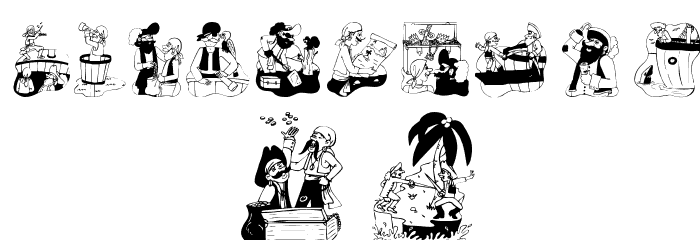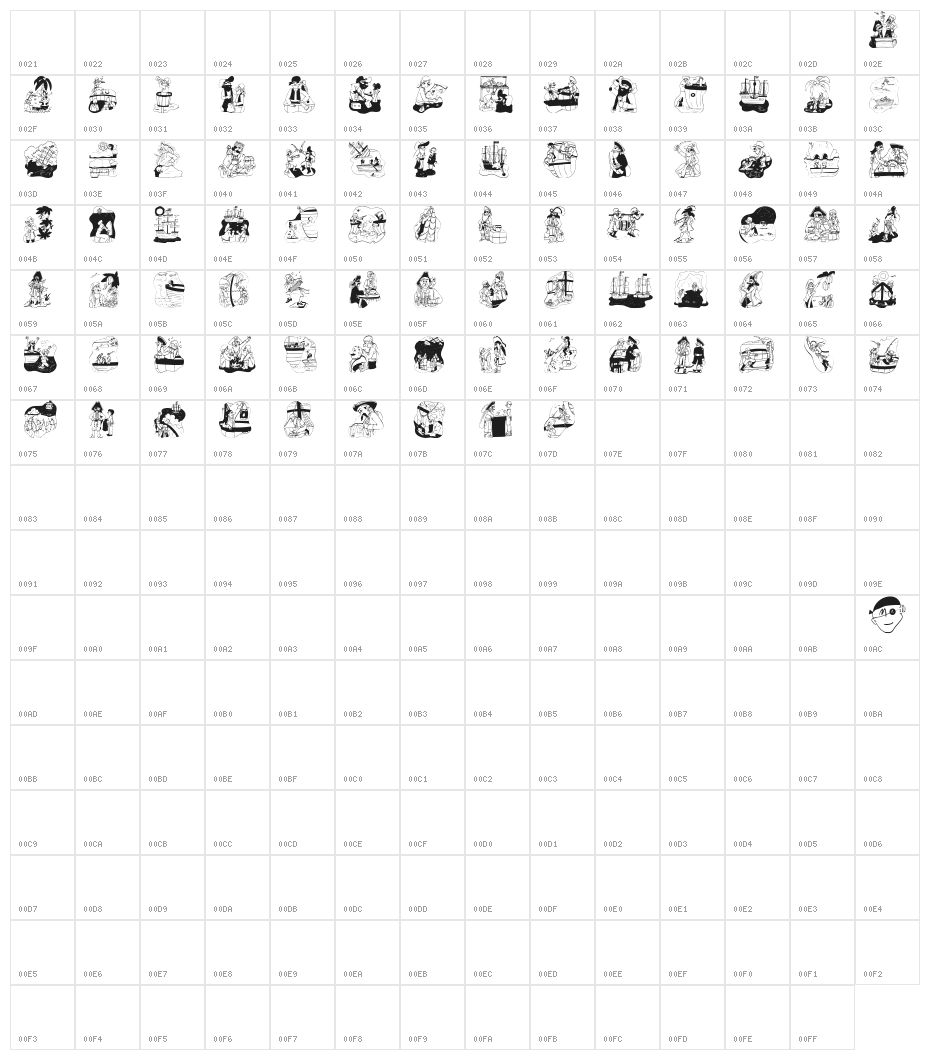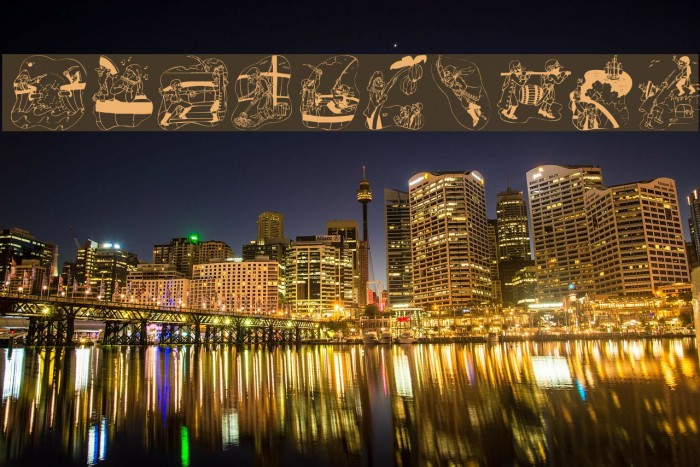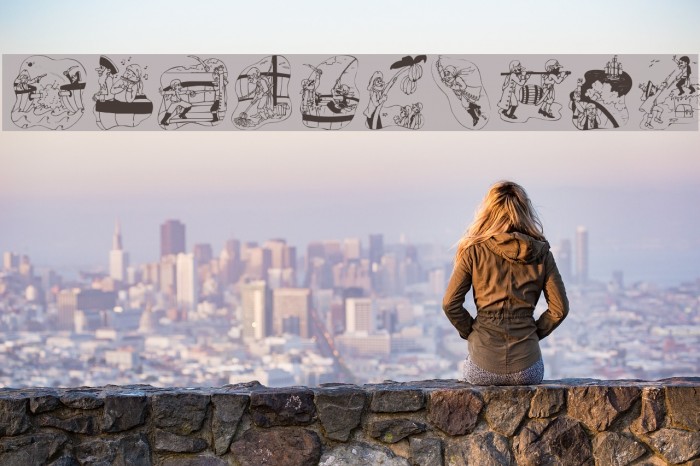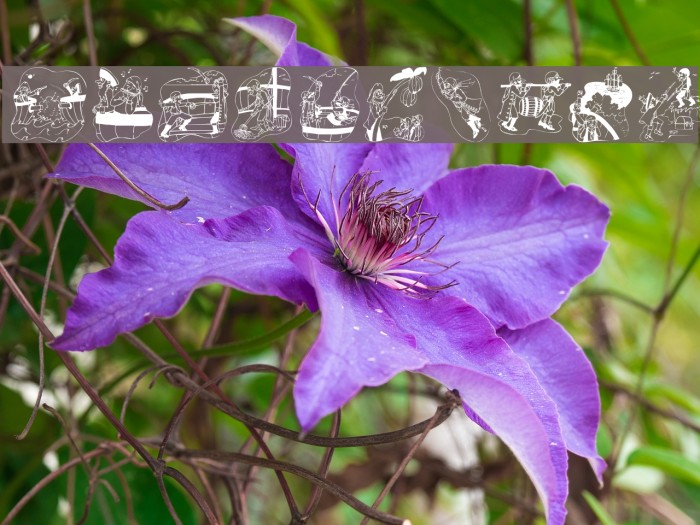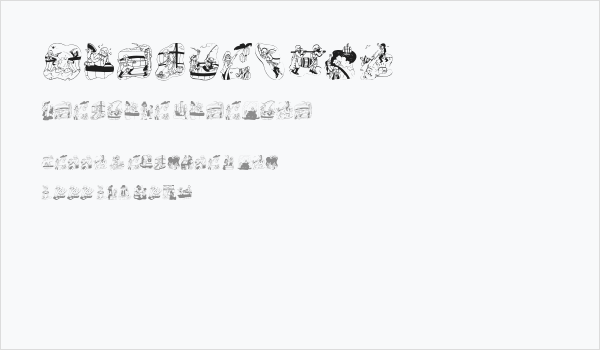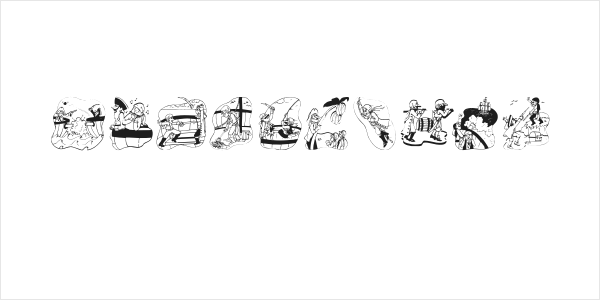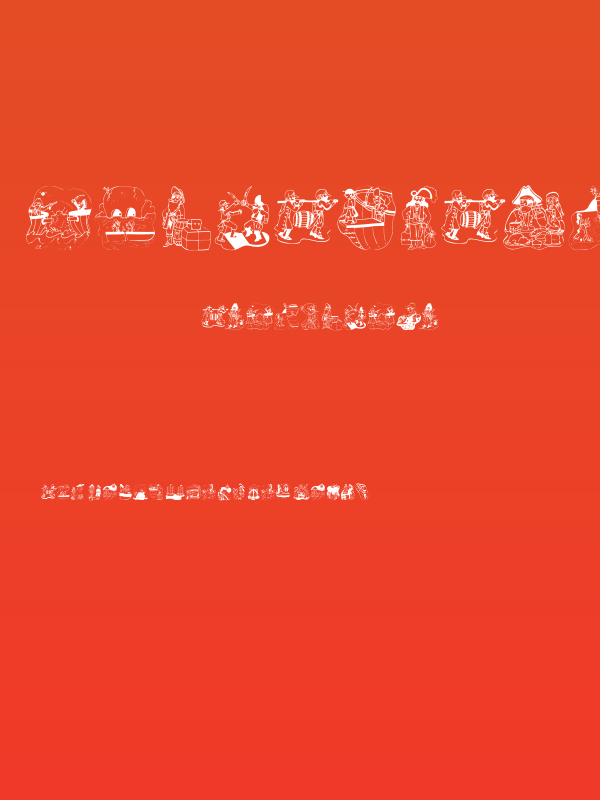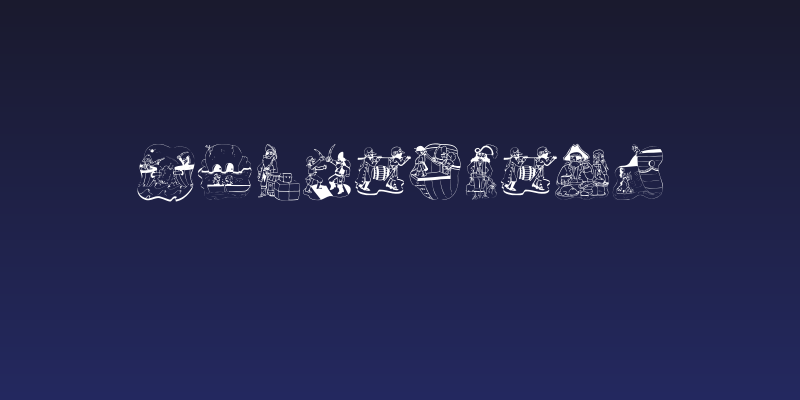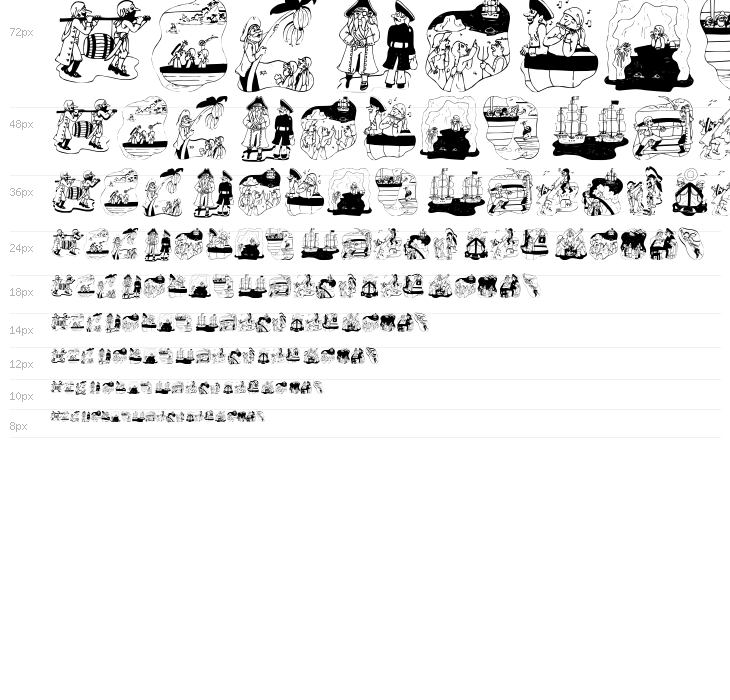
PiratesTwo Font
PiratesTwo Description
This font is a whimsical and playful collection of pirate-themed illustrations, each representing a different character or scene. The characters are depicted in various pirate-related activities, such as sailing, treasure hunting, and engaging in pirate battles. The style is cartoonish and detailed, with each letter or symbol being a unique illustration that tells a story. The font captures the adventurous and mischievous spirit of pirates, making it ideal for creative and themed projects. The illustrations are rich in detail, featuring elements like ships, treasure chests, and pirate attire, which add to the overall charm and appeal.
| Use Case | Logos, Posters, Creative Projects |
| Proposed Projects | Ideal for children's books, themed party invitations, educational materials about pirates, and creative storytelling projects. |